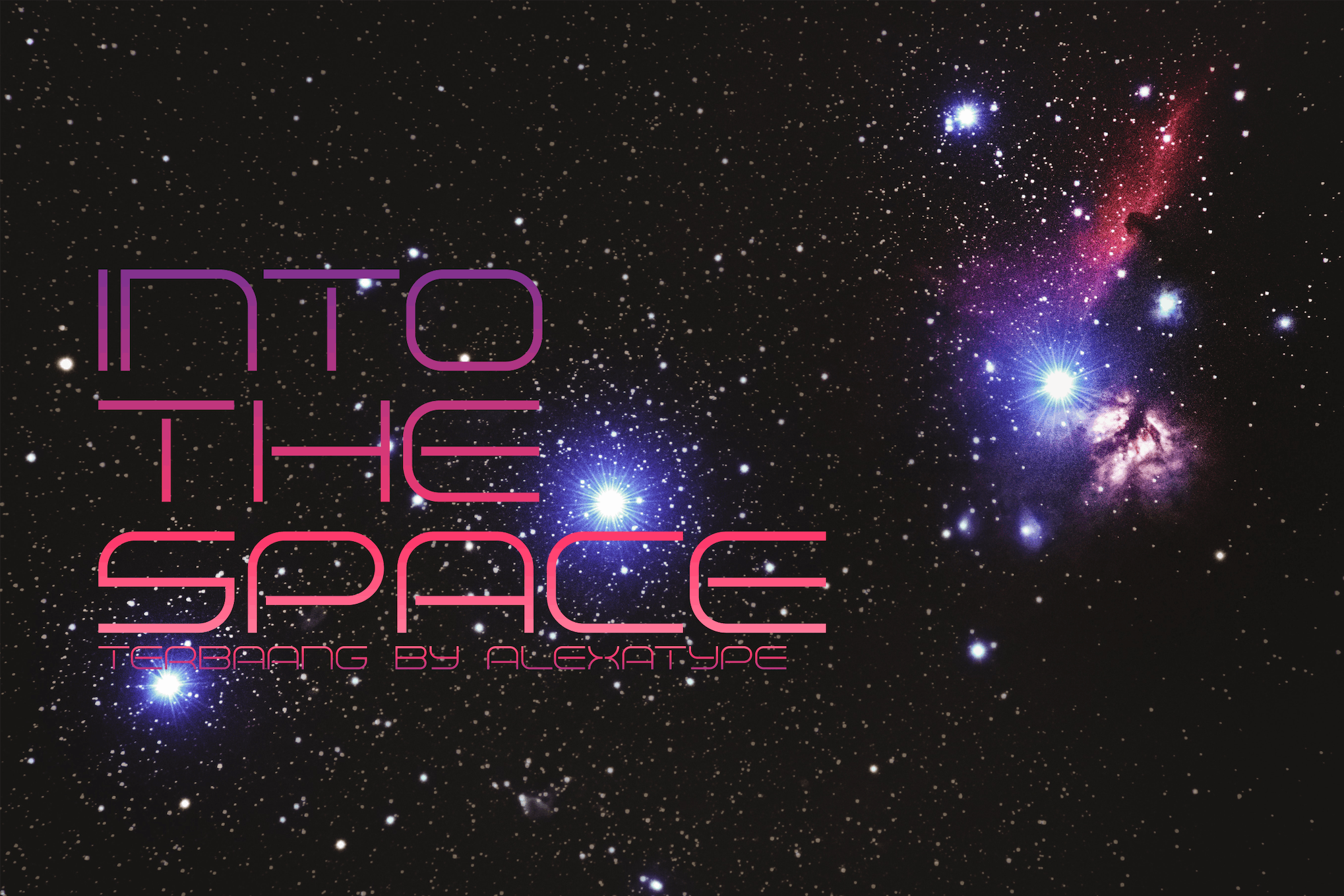
25+ Best Space Fonts for Sci-Fi & Futuristic Designs
Welcome to our gathered array of the 25+ best space fonts, an unparalleled asset trove for creatives drawn to the mystery of the cosmos and the allure of futuristic sci-fi-inspired designs. These fonts effortlessly capture the essence of intergalactic exploration and advanced technology—a perfect fit for a project that leans towards the extraordinary and otherworldly.
Our extensive collection caters to all, comprising both high-quality paid and accessible free space fonts that can cater to any aesthetic or design requirement you may have. It doesn’t matter if your work is destined for a book cover, movie poster, infographic, website, or another design platform: these fonts infuse your projects with an undeniable cosmic quality.
Explore and embark on a thrilling typographic journey as these space fonts, brimming with the spirit of sci-fi, breathe life into your visions of the future and beyond. Travel through space and time with the rich diversity of font styles that we’ve carefully collated for creators everywhere.
Space Quest Kids Font
Check out Space Quest Kids Font, a unique display font with bold, chunky letters that make it versatile and adaptable to an array of designs. This distinct font is a game-changer, turning any creative concept into a real showstopper. Be guaranteed to inject some extra fun and interest into your designs with Space Quest Kids Font.
Space Armada Retro Future
Get a taste of the future with the Space Armada Retro Future, a unique font inspired by 1980s sci-fi. This asset reminiscent of old-school video games and action films offers nine exclusive fonts that work harmoniously together, each driving a retro-futuristic effect. Useful for a wide array of design needs, this versatile, all-caps font set features distinctive uppercase and lowercase characters, punctuation, numerals, and extras, with extensive language support.
Return Space Futuristic Font
Take your design sky-high with the Return Space Futuristic Font. The modern style makes it an ideal choice for sci-fi themed projects, games, or any space adventures. It’s not just uppercase and lowercase letters; you get numerals, symbols, punctuations, ligatures, alternates and multilingual support! Files come in OTF, TTF, WOFF, WOFF2 formats.
Space Odyssey Modern Sans
Check out Space Odyssey Modern Sans by ikiiko, a unique typeface that blends semi-condensed sans serif with stretched characters. This versatile font lends itself well to logos, magazine layouts, fashion projects, quotes, and more. It comes with upper and lowercase letters, numbers, punctuation, alternate characters, and multilingual support, working smoothly on both PC and Mac. Elevate your designs with Space Odyssey!
Night Space Typeface
Explore the cosmos with Night Space, a captivating typeface steeped in celestial splendor. Meticulously designed, each letter exudes the beautiful mystery and grandeur of outer space. This versatile typeface includes Desktop and Webfont installation files, 10 alternate characters and supports the basic Latin language. Ideal for both personal and commercial use, use Night Space to add an ethereal touch to your creations.
Alien Space Font
Alien Space Font is a playful typeface that elevates your crafts with its futuristic vibe. Offering a simple, yet appealing design, this font is suitable for projects needing a hint of outer space wonder. It includes upper and lower case letters, numeral, punctuation, and multilingual support. Along with TrueType and OpenType, it also provides SVG and WOFF files to ensure versatility.
MBF Space Typeface
The MBF Space Typeface, designed by Moonbandit, is a sleek, rounded font with a modern touch. It exudes a futuristic sci-fi aura while maintaining crystal clear readability. Ideal for use in posters, titles, wordmarks, or headlines, its neat design brings a unique edge to any project.
Hello Space Font
“Hello Space Font is a versatile typeface that lets you bring a futuristic tone to your creative endeavors. It’s perfect for use in logos, branding, sci-fi posters, packaging, advertising, and in the gaming or movie industries. Its sleek design also makes it a great choice for invitation design and apparel branding. Truly, an asset for any forward-looking project.”
Lost in Space Font
Lost in Space Font is a geometric vintage typeface with a distinct futuristic appeal. The simplicity of its square shape gives it a unique charm. It also offers multilingual support for Western European languages, with screenshots available for reference. This font is ideal for those wanting to enhance their creative projects with a futuristic and vintage twist.
Rocket Space Typeface
The Rocket Space Typeface is a dynamic and whimsical display font. Ideal for a wide range of uses, from children’s books to posters and packaging, its playful yet authentic touch breathes life into any creative project. Whether you’re designing a comic book, a banner, a logotype, or even merchandise, this typeface can add a unique and fun vibe.
Space Time Font
The Space Time Font is a versatile tool ideal for modern design purposes like fashion, apparels, magazines, headlines, and web logos. Its aesthetically pleasing features are sure to transform your design into a captivating one. Provided in OTF format, it includes 4 font alternatives and multilingual support, making it a highly adaptable and engaging asset.
The Space Font
The Space Font is a captivating creative asset made for all design enthusiasts. Included are Space Silhouette Fonts provided in OTF and TTF formats, web fonts in multiple formats, with the perk of extended licensing and immediate download. Enjoy its dynamic utility with free updates. All inquiries concerning this asset will be promptly addressed to ensure seamless usage.
Meteorite Space Typeface
The Meteorite Space Typeface, a product of gienlee’s diverse creative portfolio, is a versatile font designed especially for space enthusiasts. Evoking images of mysterious celestial bodies impacting planetary surfaces, this font adds an interstellar flair to your projects. It features standard glyphs, effortlessly works on both PC & Mac, and requires no specific software. It comes as a readily usable OTF file titled ‘Meteorite-Regular’. Enjoy using it!
Terbaang Space Font
The Terbaang Space Font is a sleek, geometric typeface that mirrors forward-thinking technology and our digital future. Ideal for high-end headlines or space and tech-based projects, it showcases wide, thin-lined characters. It features both open and closed connection models in uppercase and lowercase, respectively. Terbaang is available in .otf, .ttf, and .woff formats.
Space Minimalis Typeface
The Space Minimalis Typeface is a minimalist sans serif font which is perfect for your personal or business projects. It comes in OTF, TTF, and WOFF formats available in a ZIP file. The preview image is for display purposes only and is not included in the font ZIP file. It’s a versatile, modern font choice.
Astroga Space Futuristic
Runsell Studios introduces the Astroga Font, a versatile, spaceship-themed typeface perfect for logos, clothing design, headlines or even children’s books and games. It includes uppercase, lowercase, numerals, punctuations and multilingual support. This creative asset comes in both otf and ttf formats and can be blended with other fonts to create unique and eye-catching designs.
Outer Frontier Space Font
Explore the vast cosmos with the Outer Frontier Space Font. Perfect for futuristic or scientific design projects, this asset shines in areas such as magazine segments, film titles, music posters and social media covers. Available in OTF, TTF, and WOFF formats, it includes basic Latin A-Z, numbers and punctuation. The font is compatible with Adobe Illustrator, Photoshop, InDesign, Microsoft Word, and does not require additional design software. Happy designing!
Space Authen Serif Font
Space Authen Serif Font is a bold and distinctive display font that brings a touch of authenticity to any branding endeavor, whether it’s logo design, sports themes, or others. Its versatile nature makes it shine in diverse contexts. The pack includes Space Authen in .OTF, .TTF and .WOFF formats, broadening its usability.
Spaced Future Display
Invigorate your designs with Spaced Future Display, a dynamic, futuristic logo font. The unique, modern sans-based font, complete with special alternates, makes your logo stand out, enhancing readability. It is highly versatile, compatible with both Mac and PC, and can be used across multiple platforms including Adobe Illustrator, Photoshop, InDesign, and Microsoft Word. It even supports a range of multilingual characters for increased accessibility.
Space Crow Futuristic
Space Crow Futuristic is a unique, sci-fi inspired typeface from Figuree Studio, that includes uppercase letters, numbers, and a range of special characters. Its design themes are perfect for projects related to space or future settings, such as movie posters or user interface designs. With its multilingual accents and PUA encoding, it offers a versatile way to add some intergalactic flair to your creative work.
Techno Space Futuristic
The Techno Space Futuristic font blends modernity with a cosmic feel, making it a must-have for technology-themed projects or movie logos. This versatile font supports uppercase, lowercase, numbering, and punctuation in both OTF and TTF formats. Compatible with Windows and macOS, Techno Space is always ready to elevate your design to the next level. Please note, preview images/characters are not included.
Qliphort Techno Space
Explore the future of font design with Qliphort Techno Space. Inspired by science fiction movies and books, this font package includes OTF, TFF, and WOFF files. Perfect for modern logos, posters, webfont applications, and more, Qliphort offers a unique, future-forward aesthetic complete with basic Latin, numbers, punctuation, and international characters for easy installation and use.
Voyager Futuristic Space
Voyager is a modern, sleek font with a futuristic and scientific vibe, perfect for numerous projects such as magazine covers, movie titles, and social media posts. With its unique, edgy style, the font is excellent for captivating headlines, eye-catching titles, and engaging captions. Ideal for designs related to gaming, technology, and space, Voyager brings a touch of advanced refinement, creating distinct and memorable graphics. Works on PC & Mac, accessible in Adobe Illustrator, Adobe Photoshop, Adobe InDesign, and even Microsoft Word.
Eternals Space Display
Eternals Space Display is a robust yet modern font that encapsulates the essence of space and future tech. Perfect for various uses like gaming, music, movie titles, branding, and more. This toolkit includes Eternals OTF, TTF and WOFF formats along with basic Latin A-Z, numbers, and punctuation for easy installation. Transport your audience to the cosmos with Eternals Space Display!
Space Boards Sci-Fi Logo
Discover the Space Boards Sci-Fi Logo, a striking sans font perfect for conveying a futuristic and modern aesthetic. With distinctive uppercase and lowercase letters, it’s ideal for crafting unique hi-tech logotypes or standout sci-fi movie posters. Plus, it supports multiple languages. Mix and match the cases to create a logo that truly captures attention.
Team Picko Space Techno Display
Team Picko Space Techno Display is a futuristic, robotic typeface that caters perfectly to anything science or future-oriented. Ideal for magazine segments, movie titles, social media covers, or YouTube thumbnails, this user-friendly font comes in OTF, TTF, and WOFF formats. It’s versatile across different platforms: PC, Mac, Adobe Illustrator, Photoshop, InDesign, and even Microsoft Word, without any additional software.